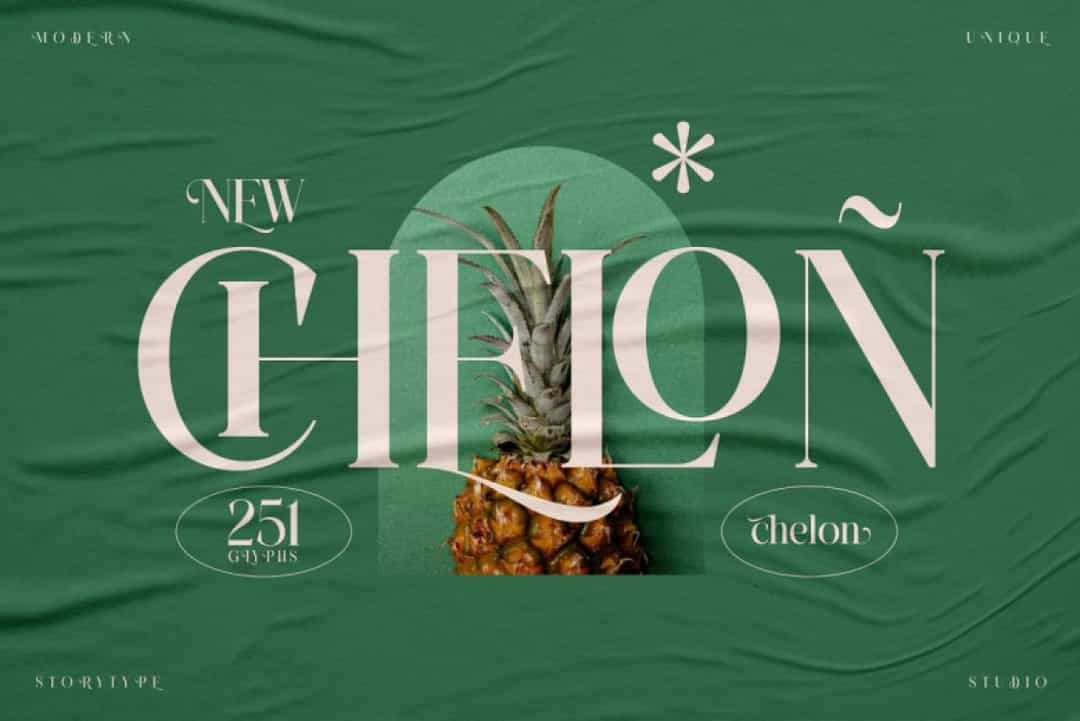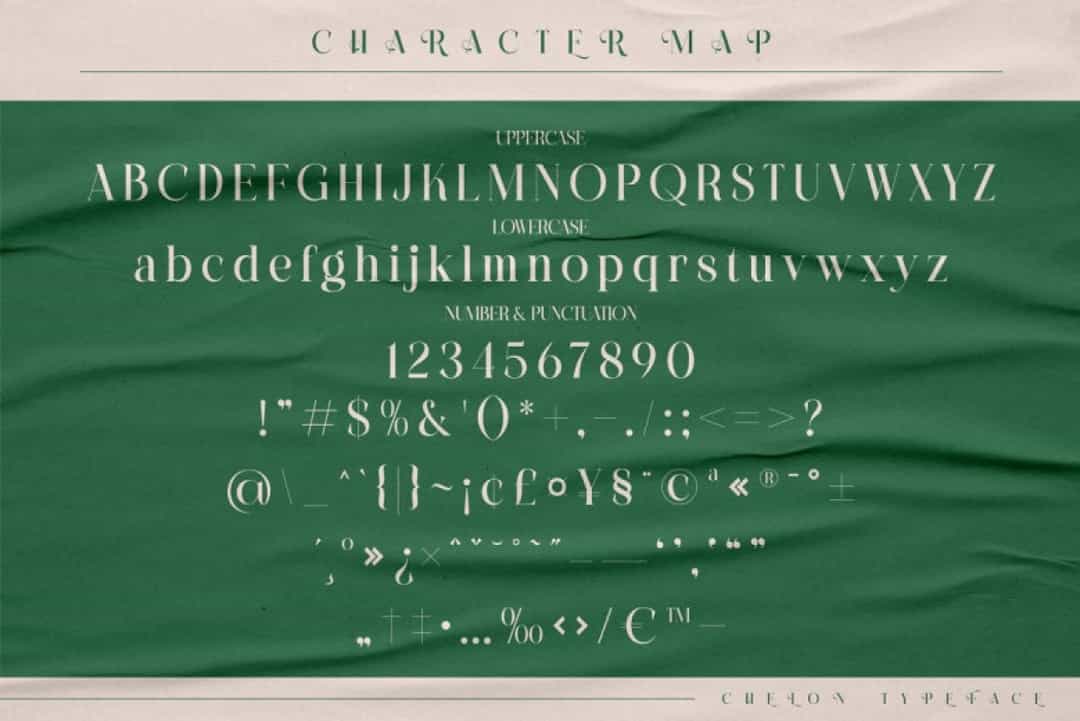
Storytype’s Chelon Typeface, designed as a classic serif typeface with its own distinctive design and modern appearance is ideal for creating luxurious logos, movie or book titles design, fashion clothing brands clothing collections magazines letters quotes and many other applications.